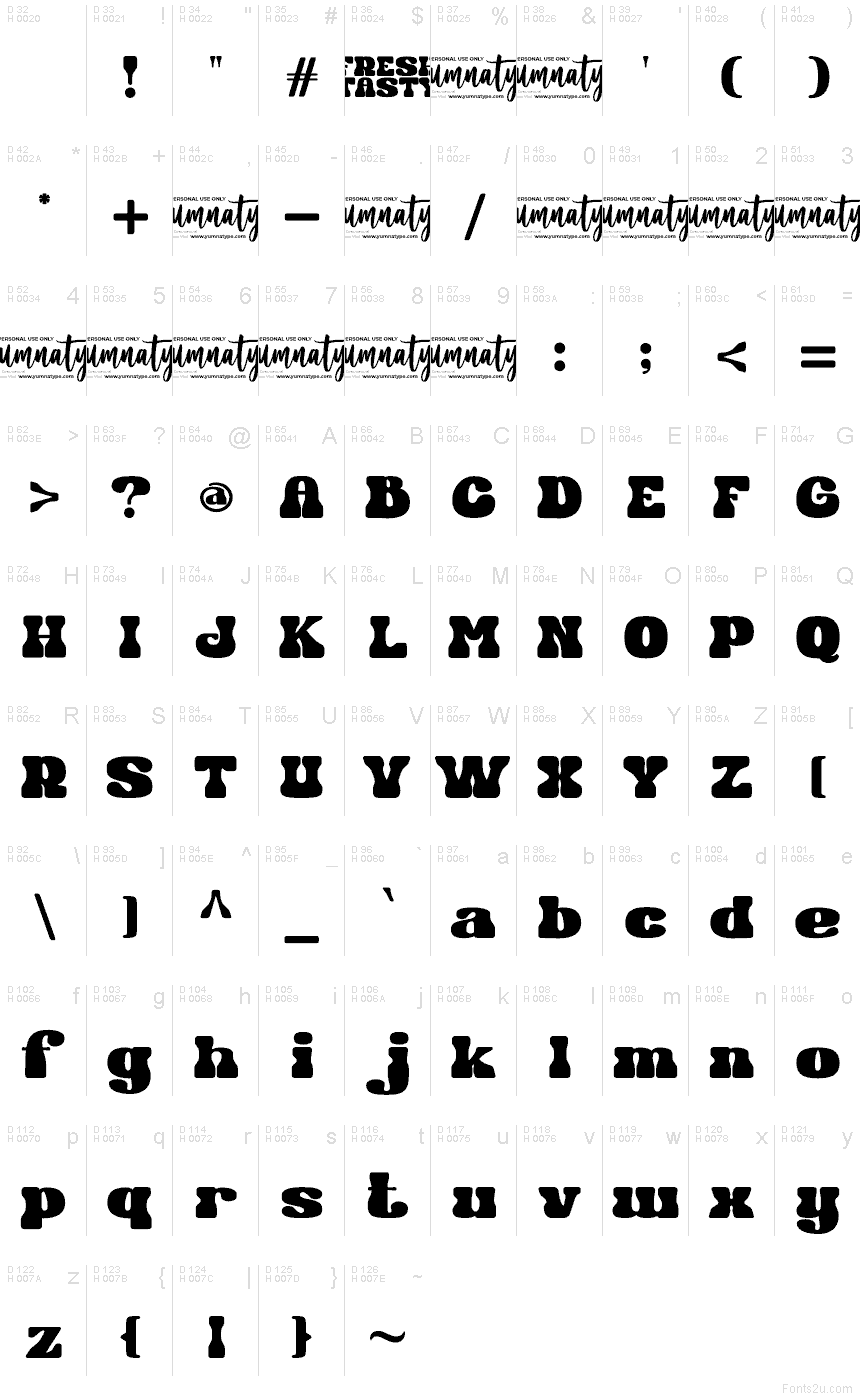
Fresh Tasty font by Yumna Family is a free groovy display typeface. Its plump, pillowy curves and scooped, almost syrupy terminals give headlines a chewy, feel-good bounce that channels vintage snack ads and record sleeves. The chunky weight lands with confidence while the rounded edges keep it friendly—bold without shouting.
Using Fresh Tasty, you’ll get instant flavor for food-truck menus, bakery logos, soda labels, festival posters, stickers, and punchy social posts. The rhythm feels dense and juicy, so set it large and keep letterspacing snug for maximum impact. For supporting text, pair this free font with a clean geometric sans to let the bubbly forms take center stage.